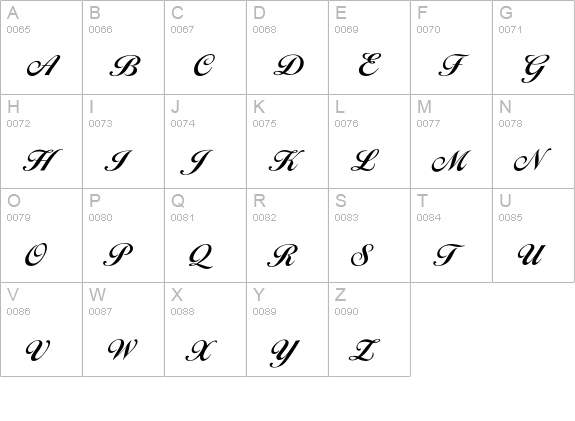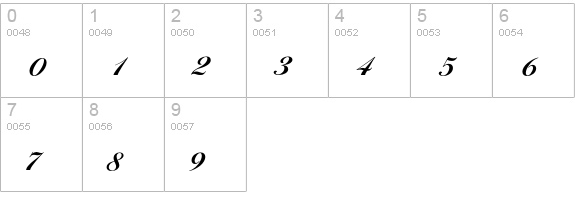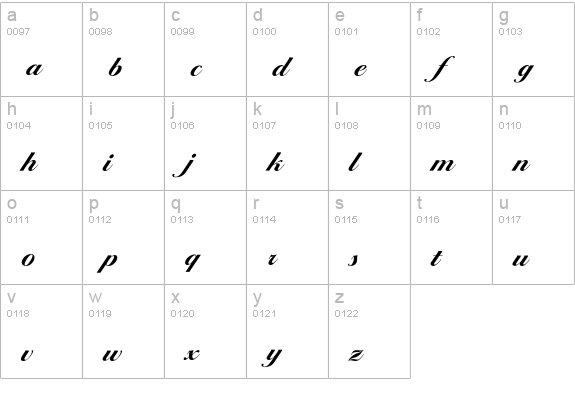
Ballantines-Bold Font Details
Ballantines-Bold is a strong, high-contrast variant in the Ballantines typeface family \xE2\x80\x94 well suited to headlines, attention-grabbing titles, and strong calls-to-action.
Ballantines-Bold is a stunning and versatile font that exudes a sense of strength and modernity. With its bold and dynamic design, this font is sure to make a statement in any project or design you use it in. The clean lines and sharp edges of Ballantines-Bold give it a bold and powerful presence that commands attention. Its sleek and professional look makes it perfect for a wide range of applications, from branding to advertising to website design. What's even better is that Ballantines-Bold is completely free to download at FontsMarket.com, making it accessible to everyone looking to add a touch of sophistication and style to their projects. So why wait? Download Ballantines-Bold today and take your designs to the next level with this striking and impactful font.